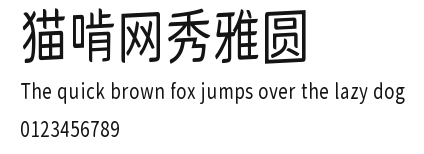
猫啃网秀雅圆 Preview
• Font Name: 猫啃网秀雅圆
• Full Font Name: 猫啃网秀雅圆 Regular
About 猫啃网秀雅圆.ttf
猫啃网秀雅圆.ttf is a modern, elegant sans-serif font designed for ultimate readability and visual harmony. Perfect for branding, headlines, web design, and print materials.